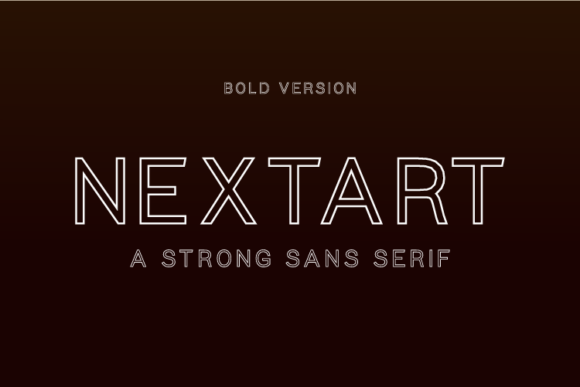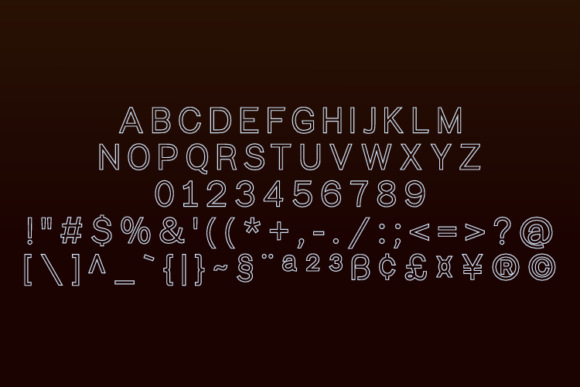
About Nextart Outline Bold Font
Nextart Outline is a fancy, contemporary sans serif font. In addition to its well-balanced weight distribution, it delivers a touch of elegance which is further emphasized by the carefully adjusted alternates and ligatures!